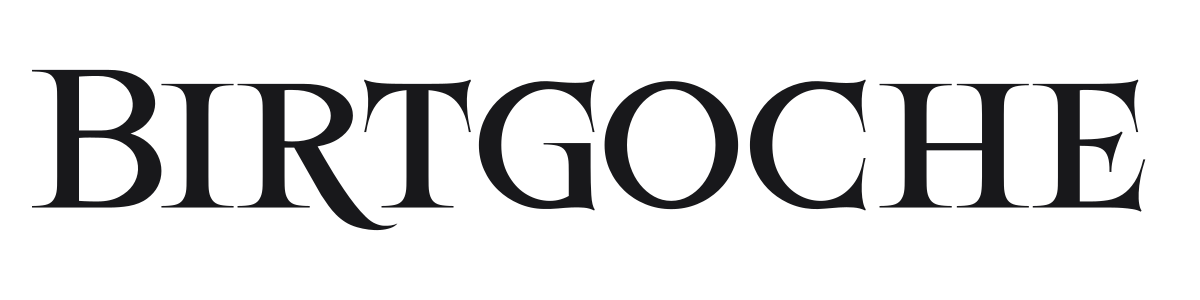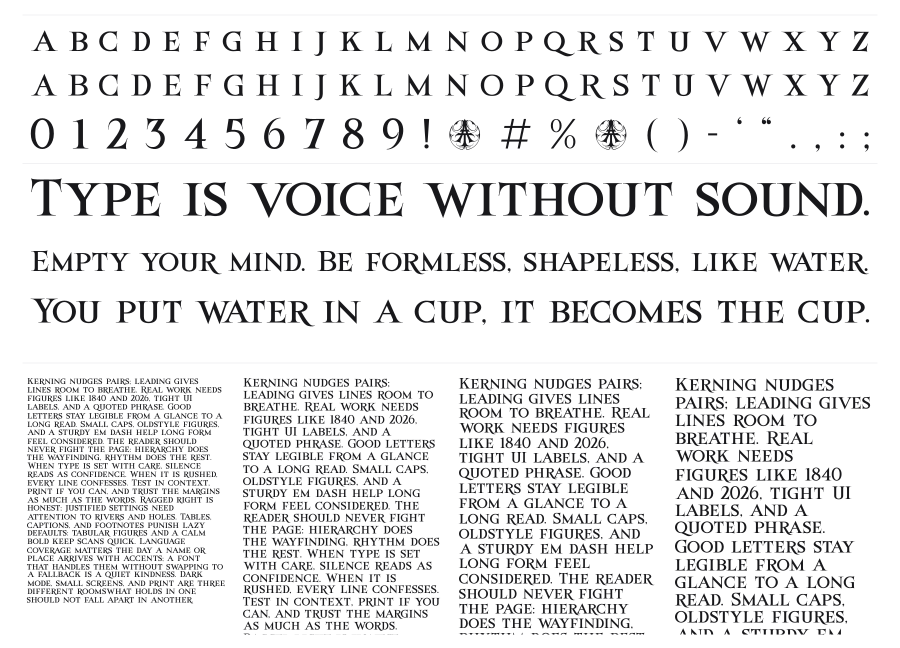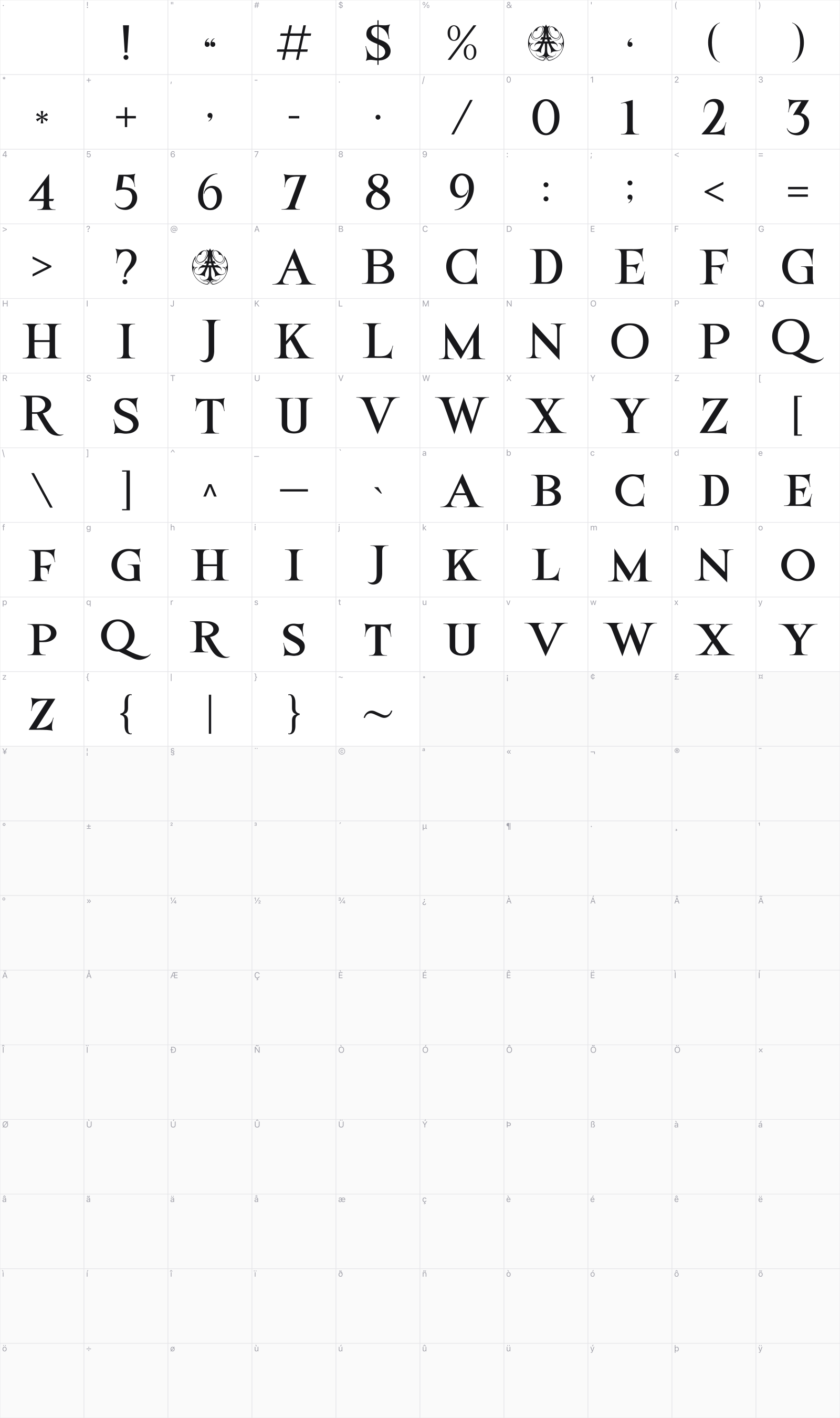
Birtgoche
Birtgoche is a high-contrast display serif with razor-thin hairlines set against bold, commanding stems. The sharp pointed serifs and subtle ornate details give it a Victorian editorial character with hints of Art Nouveau refinement. It commands attention at large sizes, especially in fashion, luxury, or heritage branding contexts.